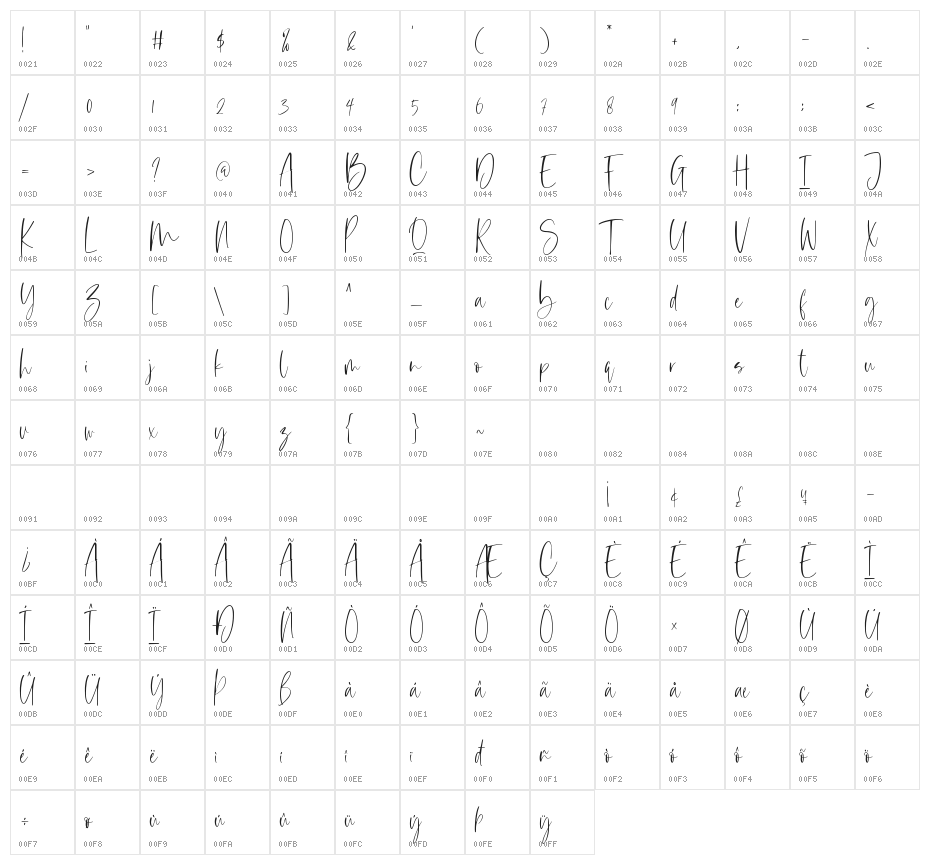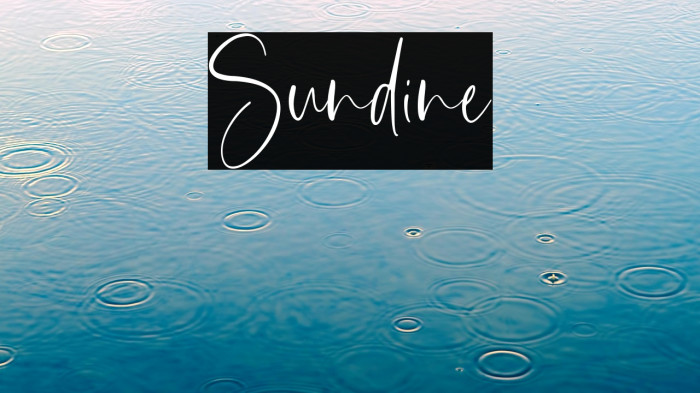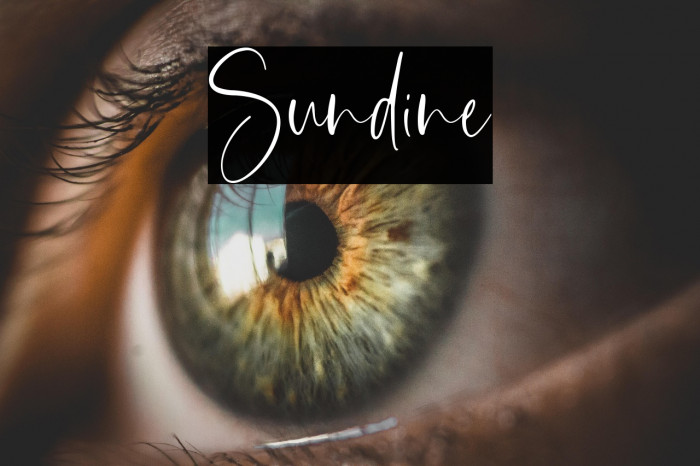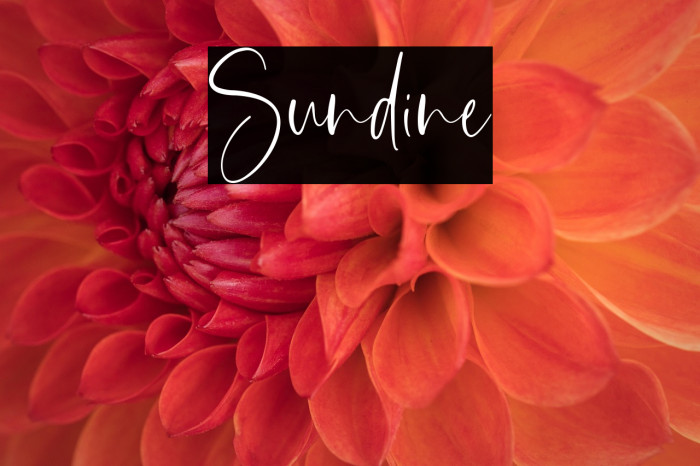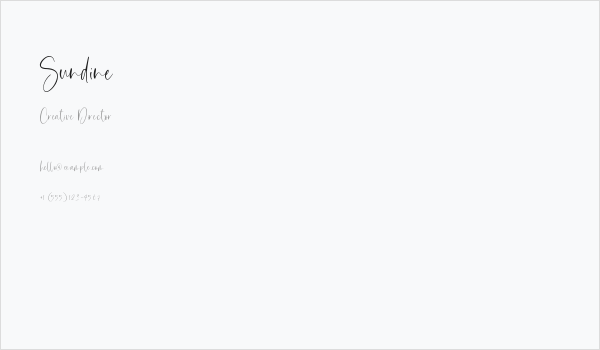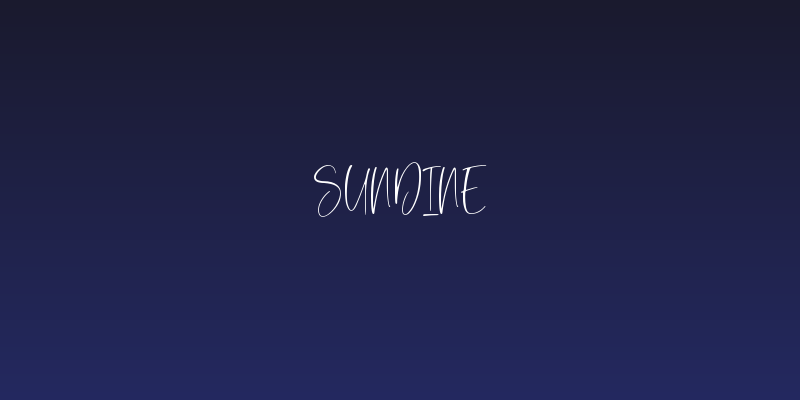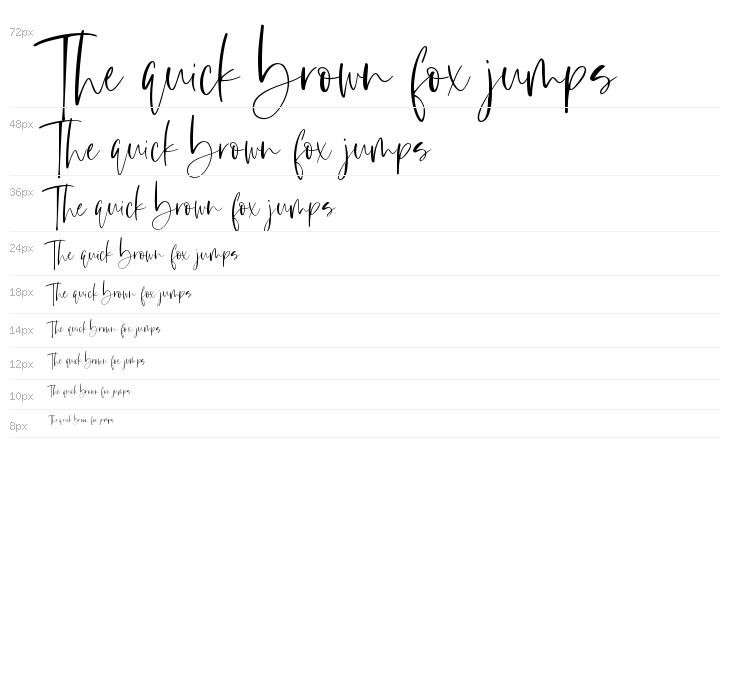
Sundine Font
Sundine Description
This font features a lively and expressive handwritten style, characterized by its flowing and dynamic letterforms. The uppercase letters are tall and slightly narrow, with a playful, artistic flair that adds a sense of movement. The lowercase letters maintain a consistent fluidity, with some characters featuring loops and curls that enhance the handwritten aesthetic. The numerals are similarly styled, with a casual yet elegant appearance. Special characters are integrated seamlessly, maintaining the overall whimsical and creative feel. The font's unique style makes it suitable for projects that require a personal touch or a sense of individuality.
| Use Case | Logos, Invitations, Creative projects |
| Proposed Projects | Ideal for wedding invitations, greeting cards, personal branding, and creative projects that require a personal touch. |